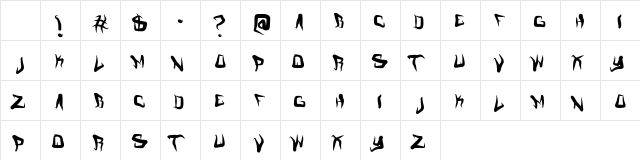
Complete FM Creep Mode Regular glyph index. Displaying only characters natively supported by FM Creep Mode Regular font.
FM Creep Mode carries an unsettling edge - its distorted letterforms are built to unsettle, perfectly suited to horror, Halloween, and dark creative work.
Font Pairing: Pair with a clean neutral sans-serif for body copy to let FM Creep Mode's character lead without overwhelming the composition.
Pro Tip: Use FM Creep Mode at larger display sizes for maximum impact. Consider generous tracking to let the disturbing character of each letterform breathe.